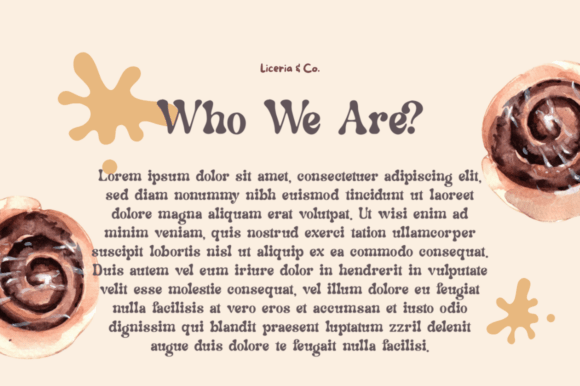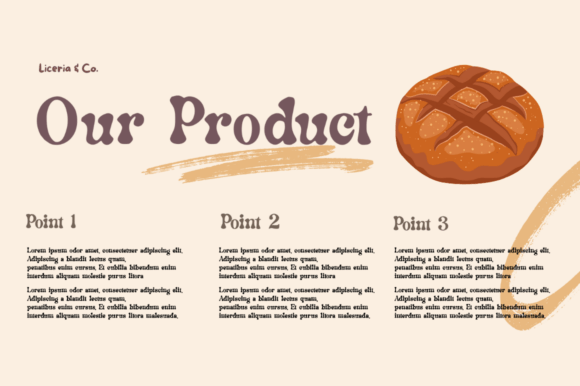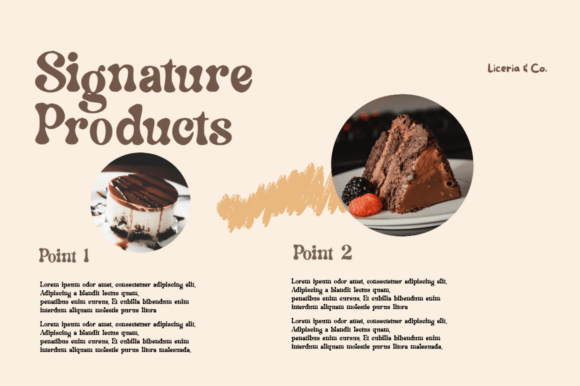
Chronicle Note Font
Chronicle Note is a charming display font with a vintage twist and playful personality. Its bold curves and whimsical shapes make it perfect for eye-catching headlines, retro branding, book covers, creative posters, and more. Whether you’re designing for print or digital, Chronicle Note brings a nostalgic yet fresh flair to your work.